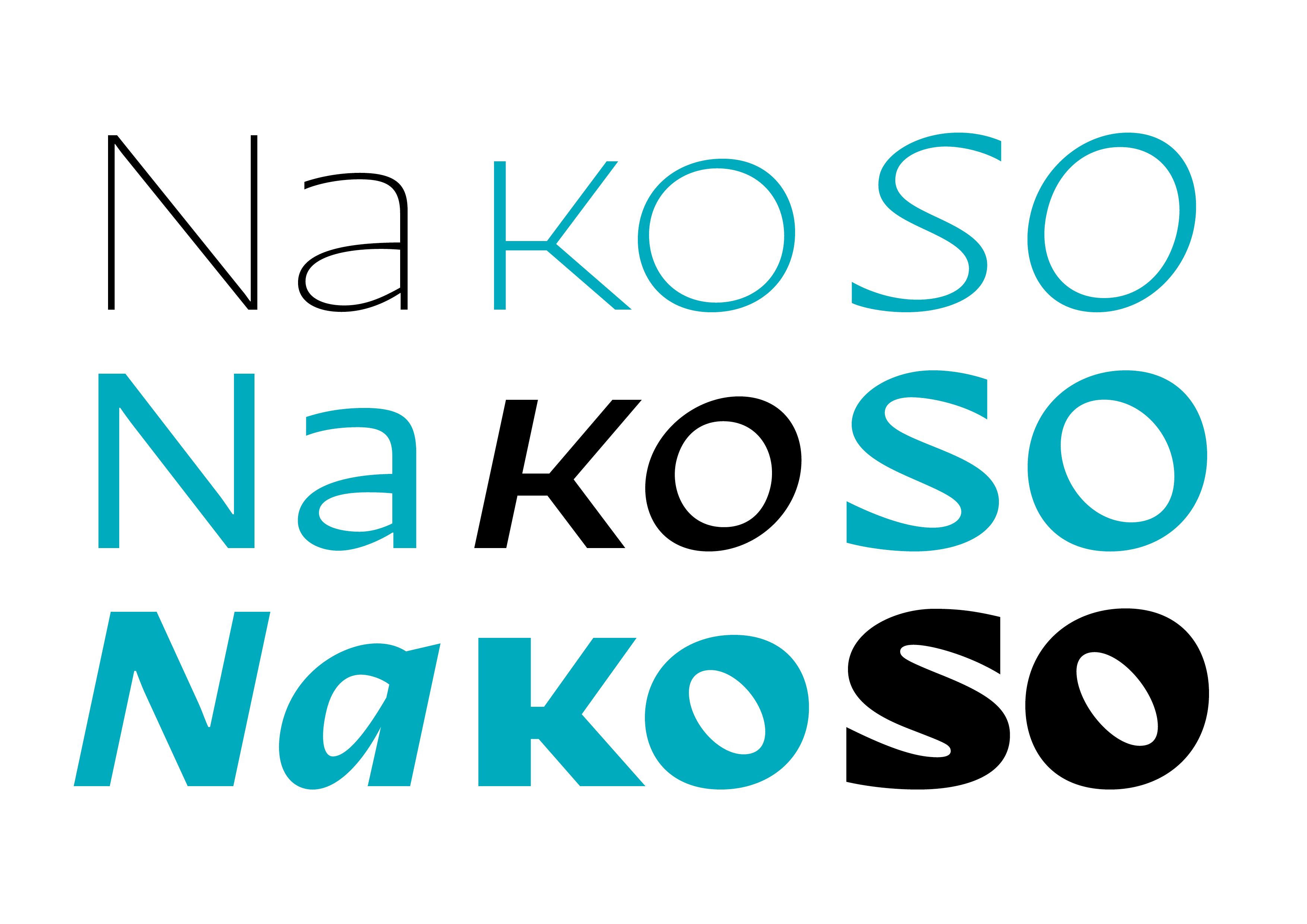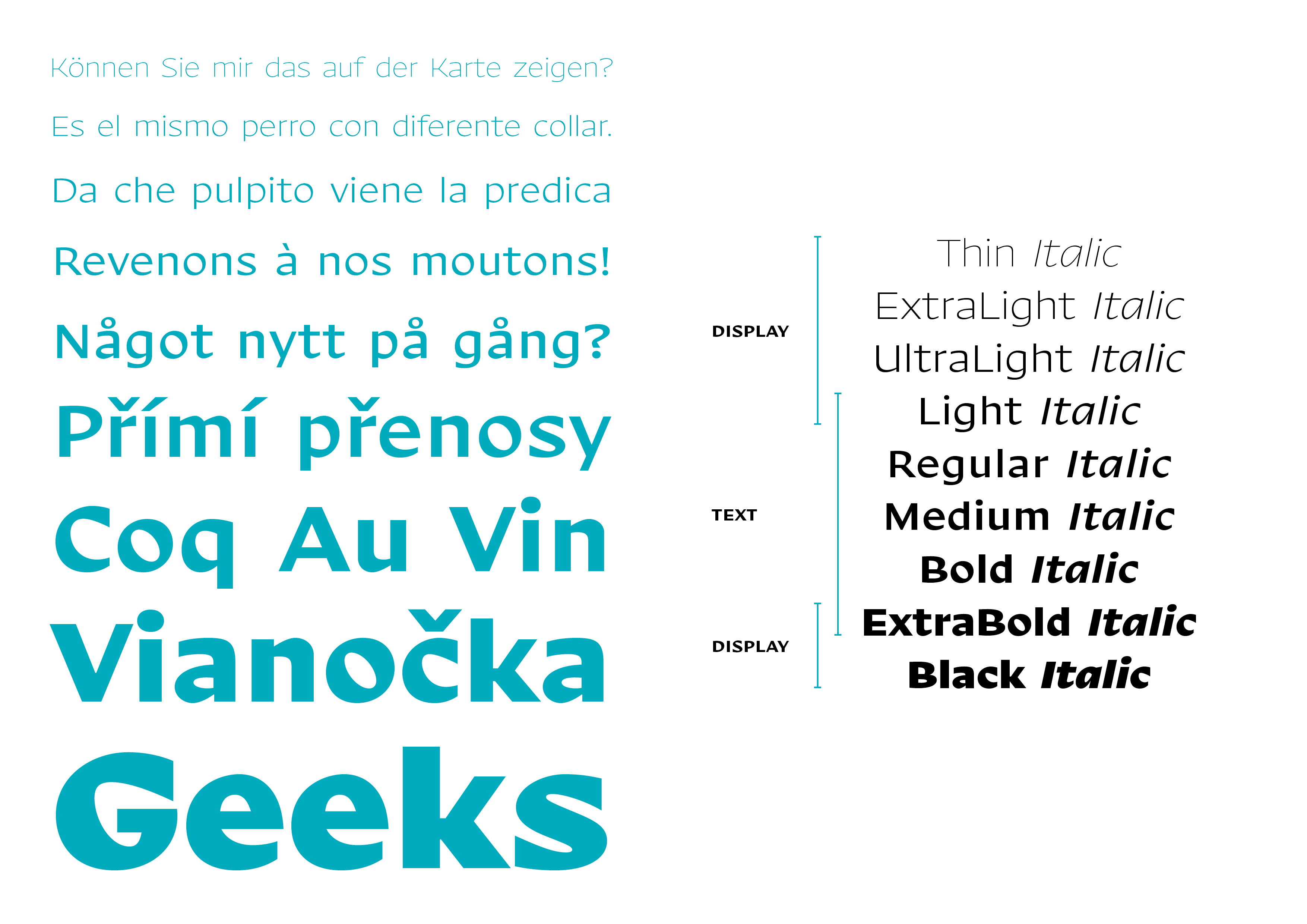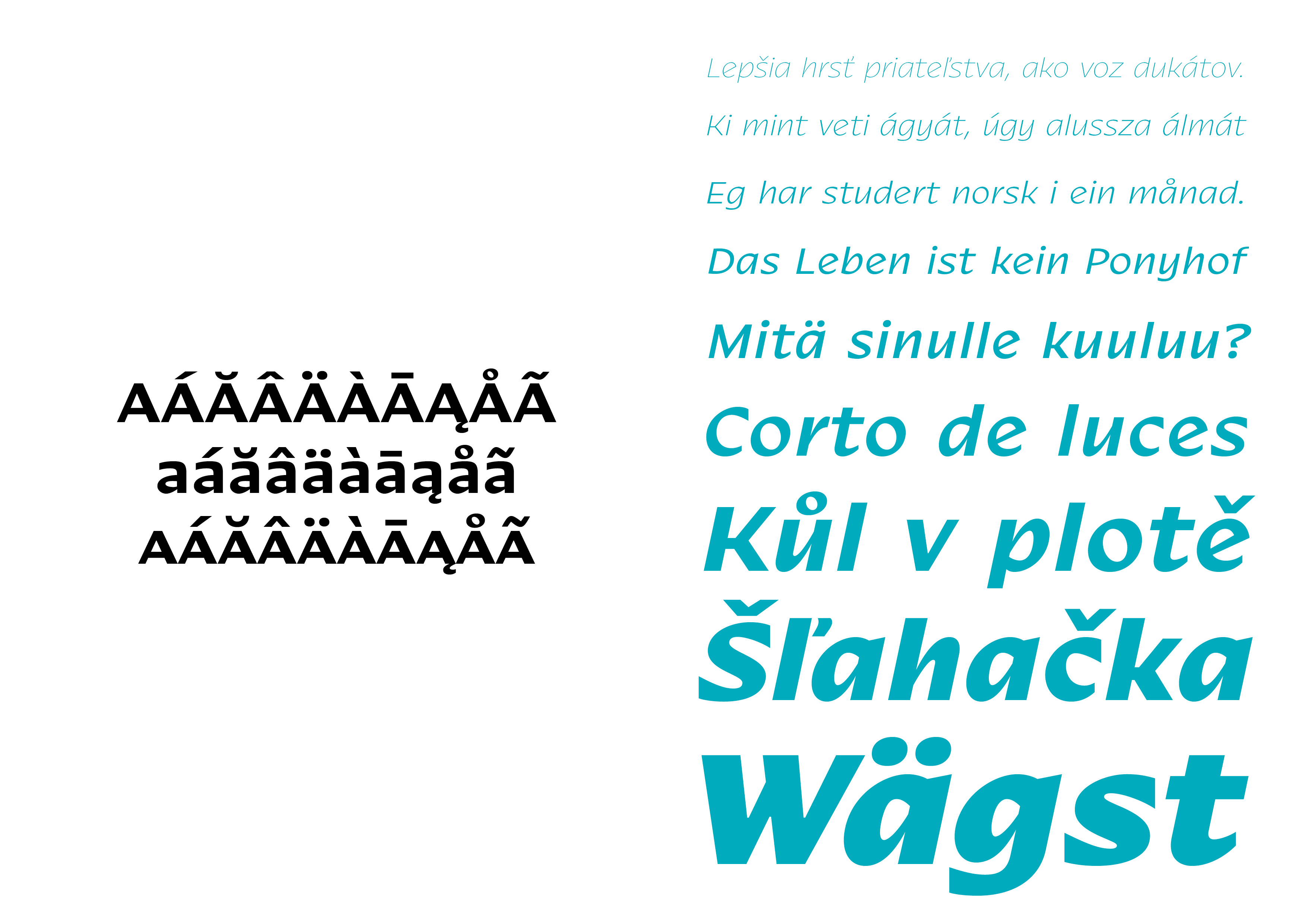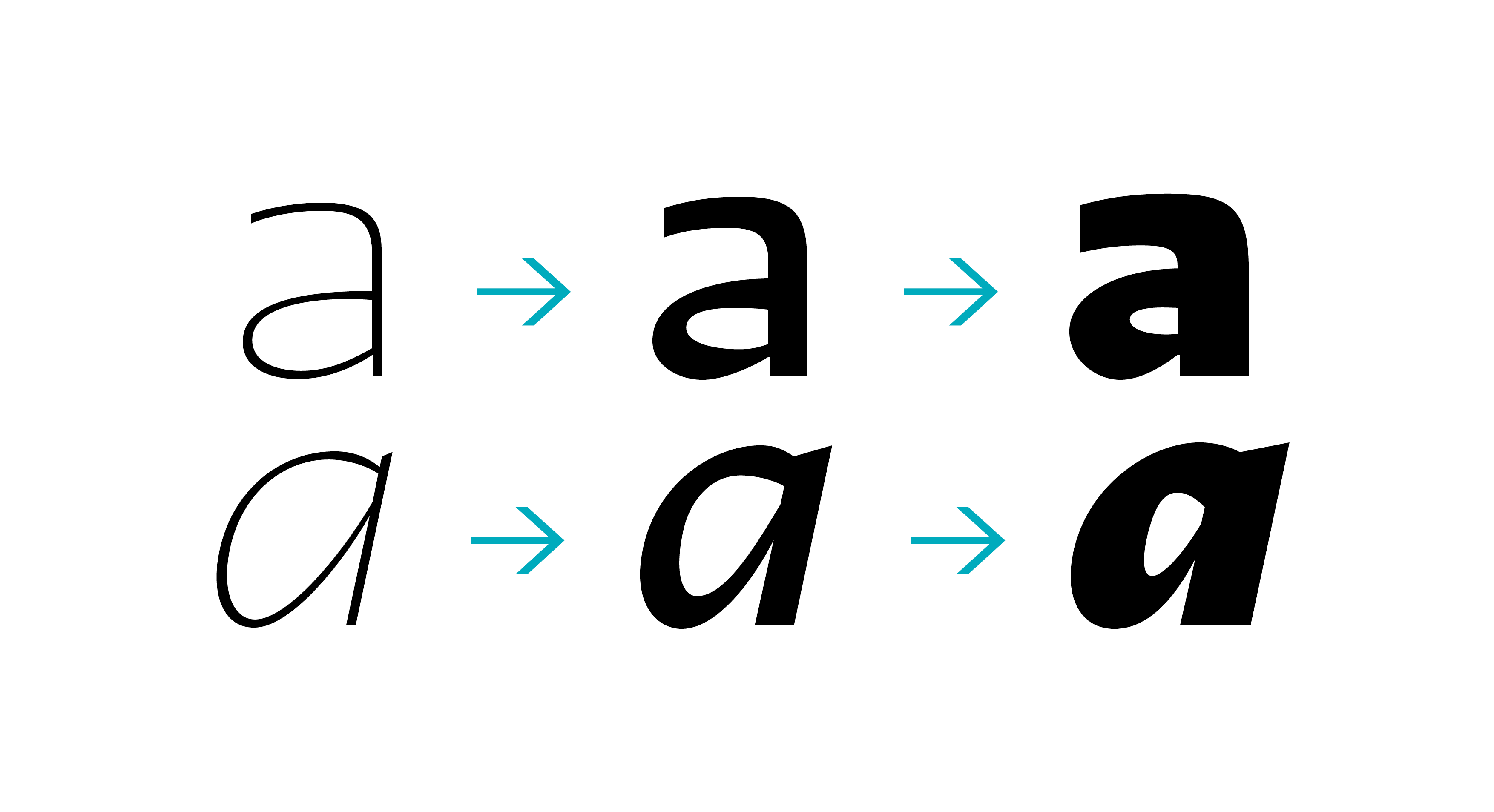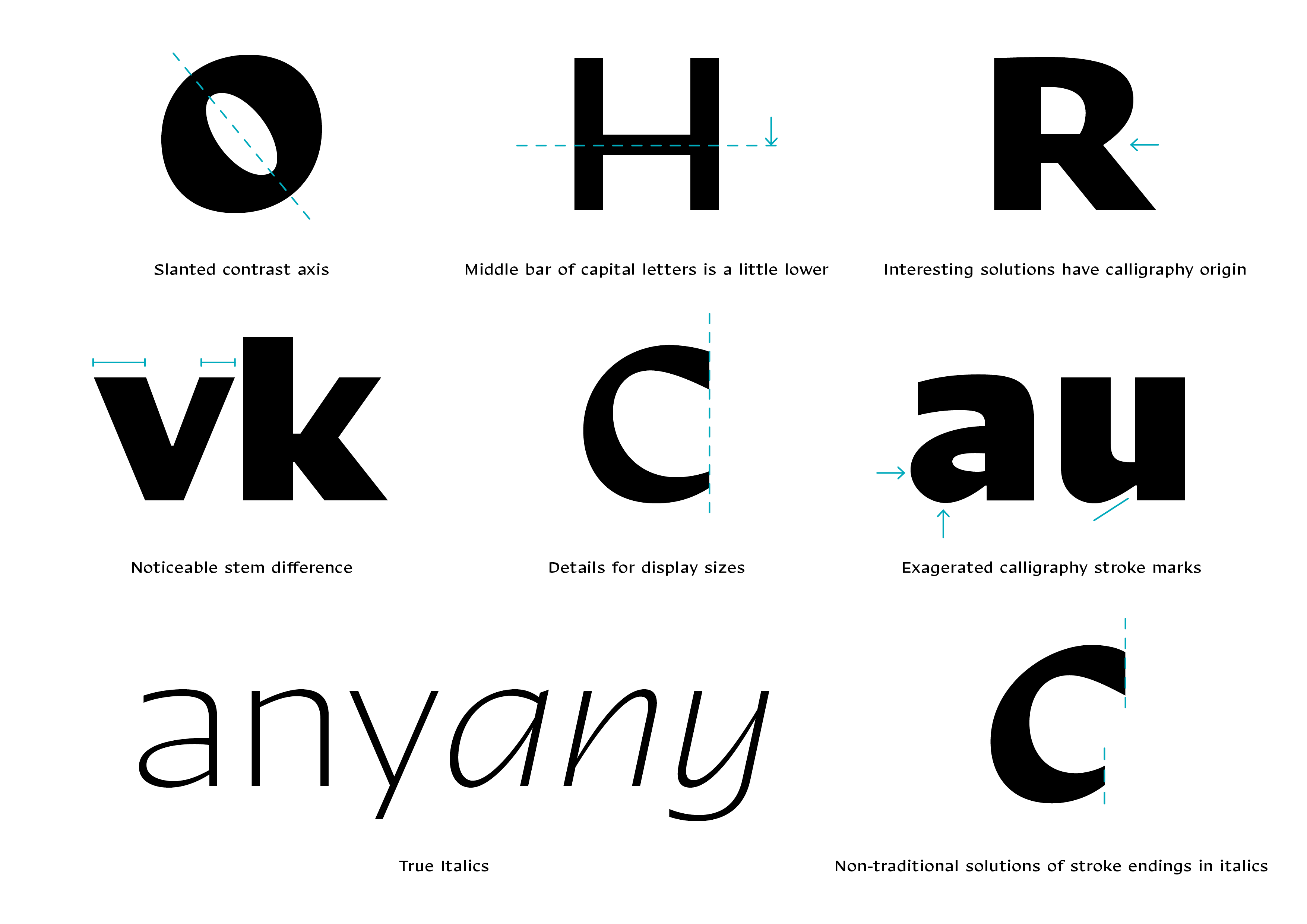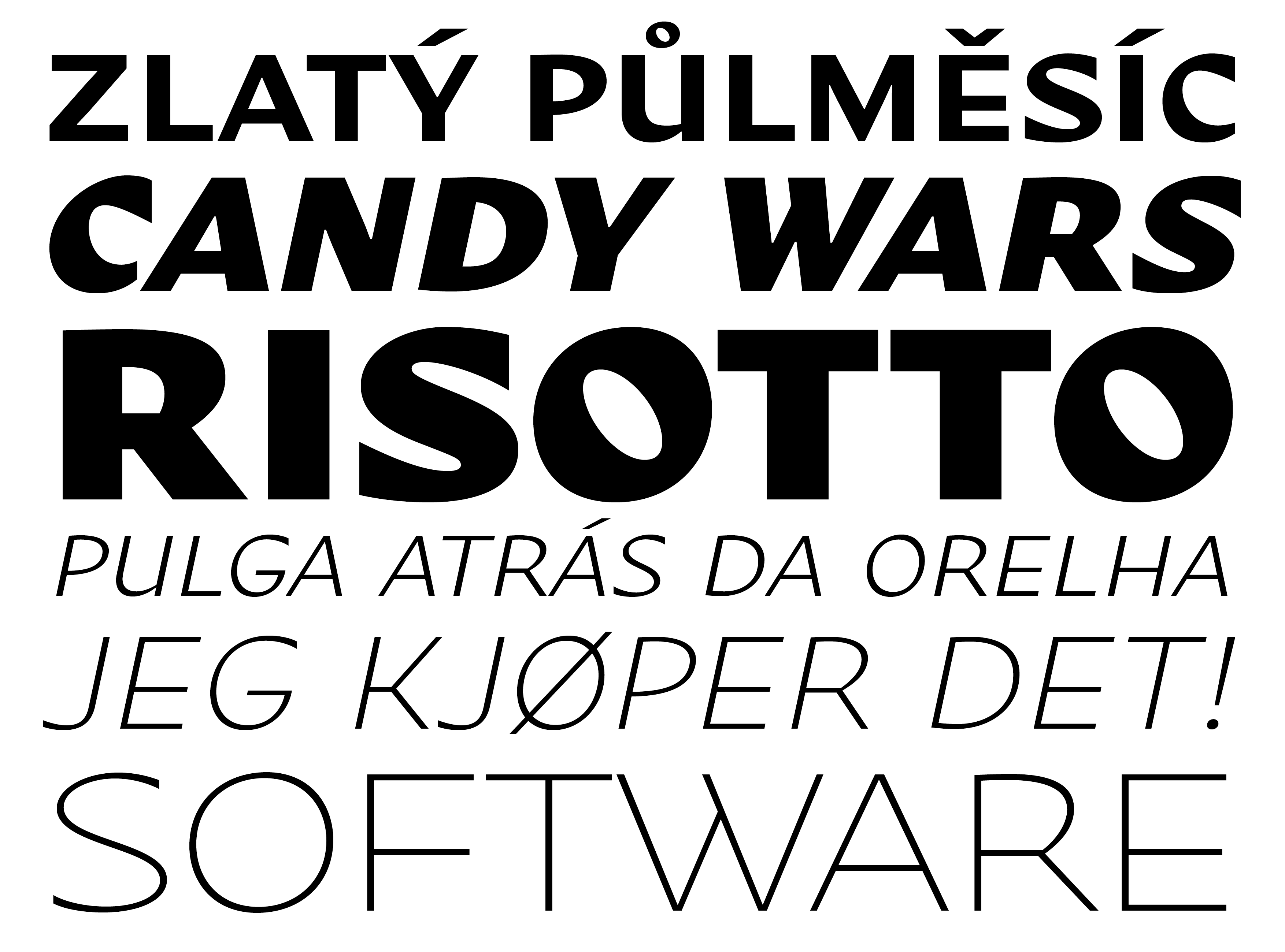
Nakoso Font Family
Nakoso is a fresh and playful sans-serif typeface based on broad-nib pen calligraphy and inspired by sign painting. Its contrast angle is visibly slanted, and influenced the choice of name (“nakoso” in slovak = slanted).